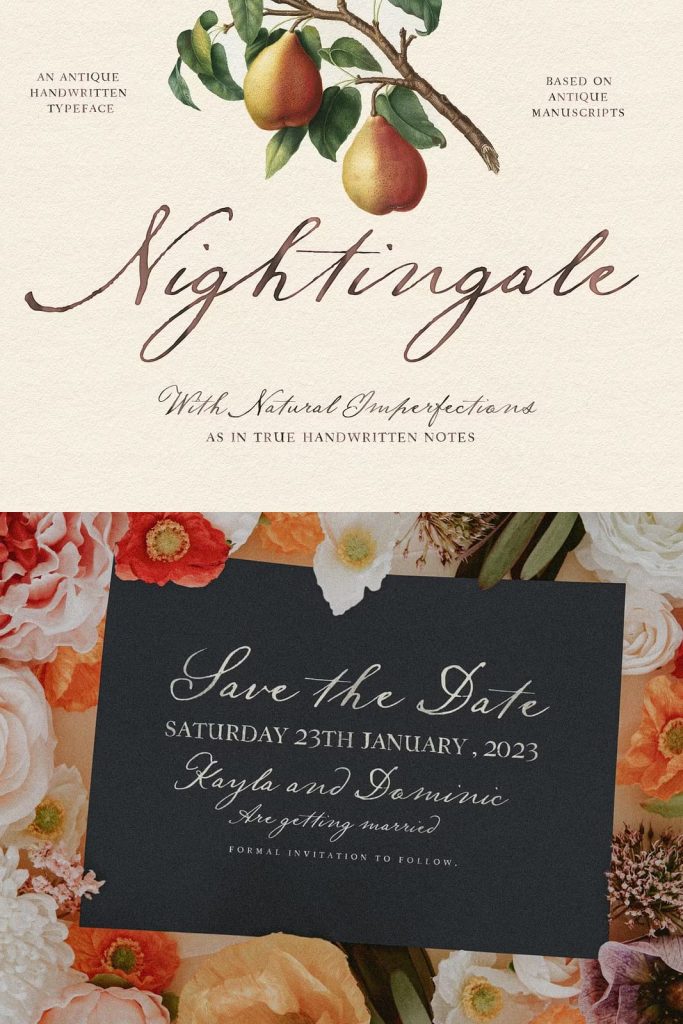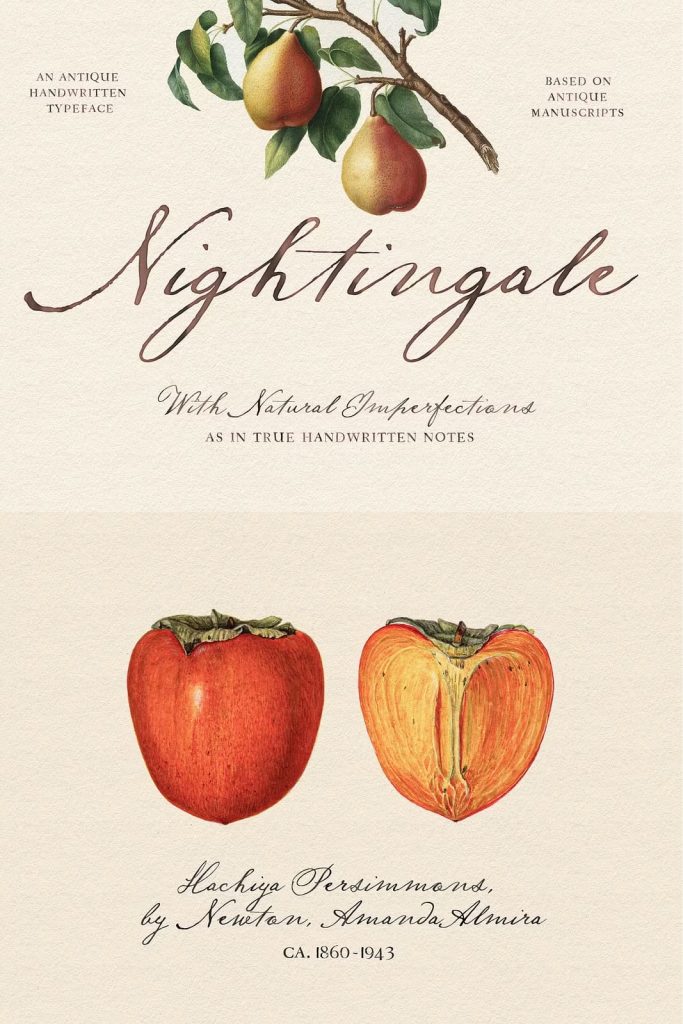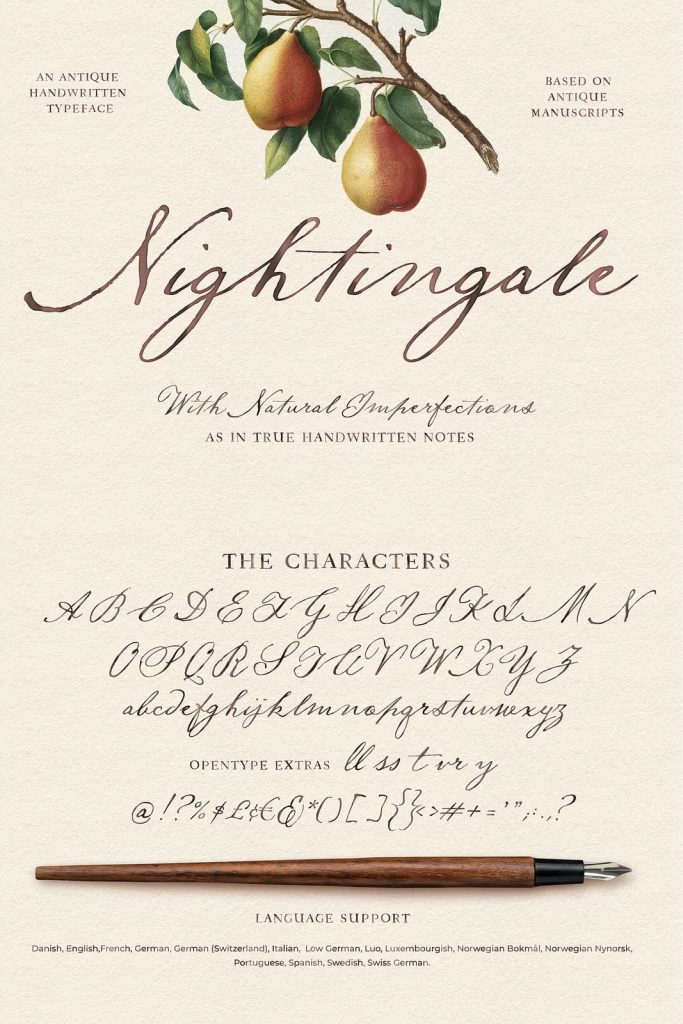
Nightingale Script Font – A Romantic Antique Script Inspired by Vintage Handwriting
Introducing Nightingale Script Font
Nightingale Script Font is a timeless handwritten typeface crafted to capture the essence of antique penmanship. Inspired by old manuscripts and historical handwritten notes, this font brings a sense of nostalgia, romance, and authenticity to any design. Every curve and stroke has been thoughtfully designed to emulate the beauty of traditional calligraphy while maintaining a natural, imperfect charm that feels personal and artistic. Nightingale Script is perfect for those who appreciate the elegance of classic handwriting and wish to infuse their designs with a warm, old-world atmosphere.
An Antique Script with Character and Depth
Nightingale Script was designed with intention and care, embracing the beauty of imperfection. Its slightly irregular letterforms and fluid connections reflect the personality of hand-drawn ink on paper, reminiscent of love letters, diary entries, and historical correspondence. The result is a script that feels both intimate and timeless, capable of transforming ordinary text into something truly poetic.
Inspired by Historical Handwriting
This font draws its inspiration from antique manuscripts and handwritten documents dating back to centuries past. It captures the nuances of vintage pen strokes — the delicate pressure changes, elegant curves, and subtle inconsistencies that make handwriting feel alive. With Nightingale Script Font, you can recreate the elegance of old-world typography while maintaining a modern sense of usability and readability.
Beautifully Imperfect Handcrafted Design
The charm of Nightingale Script lies in its handcrafted imperfection. Unlike overly polished digital typefaces, this script retains the organic character of real handwriting. Each letter is slightly varied, giving your text a natural rhythm and human touch. This design approach makes it ideal for projects that seek authenticity, romance, and individuality. It’s a font that doesn’t just communicate words—it tells a story.
- Authentic Texture: Imitates the feel of ink on aged paper.
- Organic Flow: Smooth but varied strokes add life to every line.
- Handcrafted Character: Designed to preserve the artistry of vintage handwriting.
Perfect for Romantic and Vintage-Themed Designs
Nightingale Script Font works beautifully across a wide range of creative applications. Its elegant and nostalgic aesthetic is especially suited for projects that aim to evoke romance, sophistication, and timelessness. Whether you’re creating elegant stationery or branding for luxury products, this font adds a layer of refinement and emotion that modern typefaces often lack.
- Wedding Invitations and Stationery: Add an intimate, romantic touch to announcements, menus, and place cards.
- Branding and Logos: Perfect for luxury brands, boutique businesses, or artisanal products that value tradition and class.
- Book Covers and Editorial Design: Give novels, poetry collections, or magazines an old-world literary feel.
- Quotes and Art Prints: Turn meaningful words into elegant visual expressions.
- Packaging Design: Ideal for perfumes, candles, wines, or handmade goods that celebrate heritage and quality.
A Font That Blends History with Modern Versatility
While Nightingale Script celebrates the charm of the past, it’s built for today’s creative world. The font includes full alphabet support, punctuation, numerals, and ligatures, ensuring that it performs flawlessly in both digital and print environments. Its flowing, legible form makes it suitable for longer text passages while maintaining a romantic aesthetic that never feels forced or artificial.
Features of Nightingale Script Font:
- Full Uppercase and Lowercase Set: Ensures flexibility in composition and design.
- Beautiful Ligatures: Adds natural flow between letters for a realistic handwritten effect.
- Punctuation and Symbols: Fully equipped for professional typography use.
- Multi-Language Support: Designed for global accessibility and usability.
Bring Old-World Beauty to Modern Design
Using Nightingale Script in your designs is like breathing life into words. Its delicate, antique-inspired form adds depth and emotional resonance to everything it touches. The font works beautifully when paired with textured backgrounds, classic serif fonts, or vintage imagery. Whether you’re designing a heritage brand identity or creating personal artwork, Nightingale Script enhances your message with authenticity and grace.
Why Choose Nightingale Script Font?
Choosing Nightingale Script Font means embracing elegance and emotion in every stroke. This is not just a typeface—it’s a bridge between history and creativity. Designers choose it for its ability to evoke nostalgia while remaining practical for modern applications. Its unique balance of imperfection and precision gives it unmatched charm and character.
Design Benefits:
- Evocative Style: Perfectly captures the charm of vintage handwriting.
- Versatile Use: Suitable for romantic, historical, and luxury-themed projects.
- High Legibility: Elegant yet readable in various sizes.
- Artistic Detail: Reflects the authenticity of hand-crafted calligraphy.
- Professional Craftsmanship: Balanced design for both print and digital media.
Nightingale Script Font is a masterful tribute to the beauty of handwritten art. Its delicate imperfections and graceful curves bring warmth, elegance, and nostalgia to your work. Whether you’re designing a wedding invitation, an antique-inspired logo, or a romantic editorial layout, Nightingale Script transforms your typography into a work of art. It’s more than just a font—it’s an invitation to rediscover the timeless beauty of pen and ink.
Let Nightingale Script Font add a touch of vintage romance and authentic craftsmanship to your next design project.